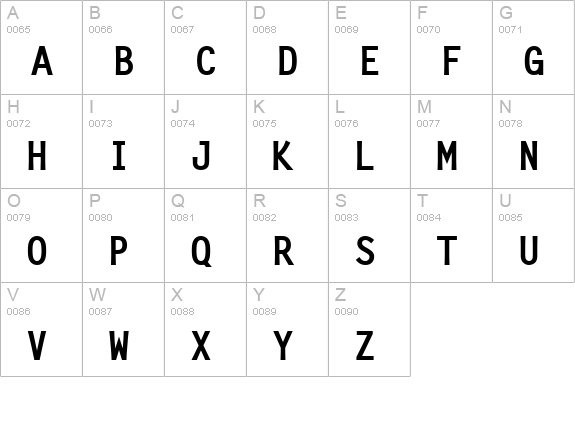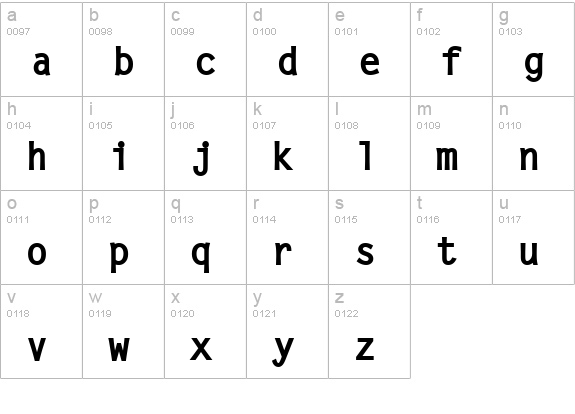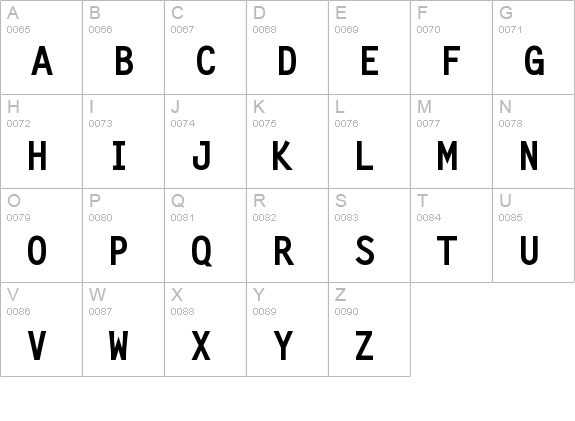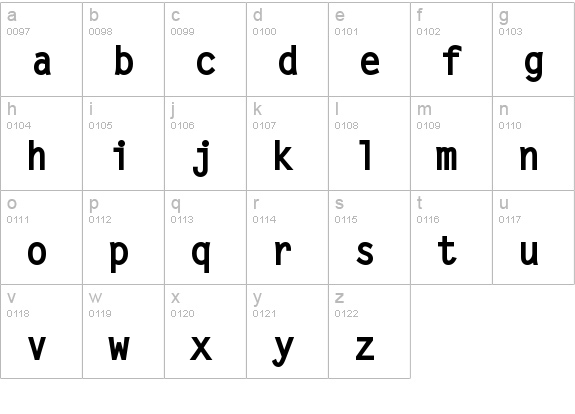
LetterGotLBol Font Details
LetterGotLBol is a visually striking and captivating font that is sure to leave a lasting impression. Its bold and unique design makes it perfect for adding a touch of personality to any project or design. With its eye-catching curves and strong lines, LetterGotLBol stands out amongst other fonts. Whether used for headlines, titles, or logos, this font commands attention and demands to be noticed. One of the most appealing aspects of LetterGotLBol is that it is free to use. This means that you can download and enjoy this amazing font without any cost. It is freely available to download at FontsMarket.com, a trusted source for high-quality fonts. Not only is LetterGotLBol visually stunning, but it is also incredibly versatile. It can be used in a wide range of applications, from print materials such as posters and brochures, to digital designs like websites and social media graphics. Its flexibility ensures that it can adapt to any project or creative vision. Furthermore, LetterGotLBol is incredibly easy to use. Its clean and well-defined letterforms make it legible at any size, ensuring that your message is always clear and impactful. Whether you are a professional designer or a beginner, this font is accessible to all, enhancing your creative process. In conclusion, LetterGotLBol is a must-have font for anyone looking to make a bold statement. Its striking design, versatility, and user-friendly nature make it a valuable addition to any font collection. And the best part? It's free! So why wait? Head over to FontsMarket.com and download LetterGotLBol today to elevate your designs to new heights.